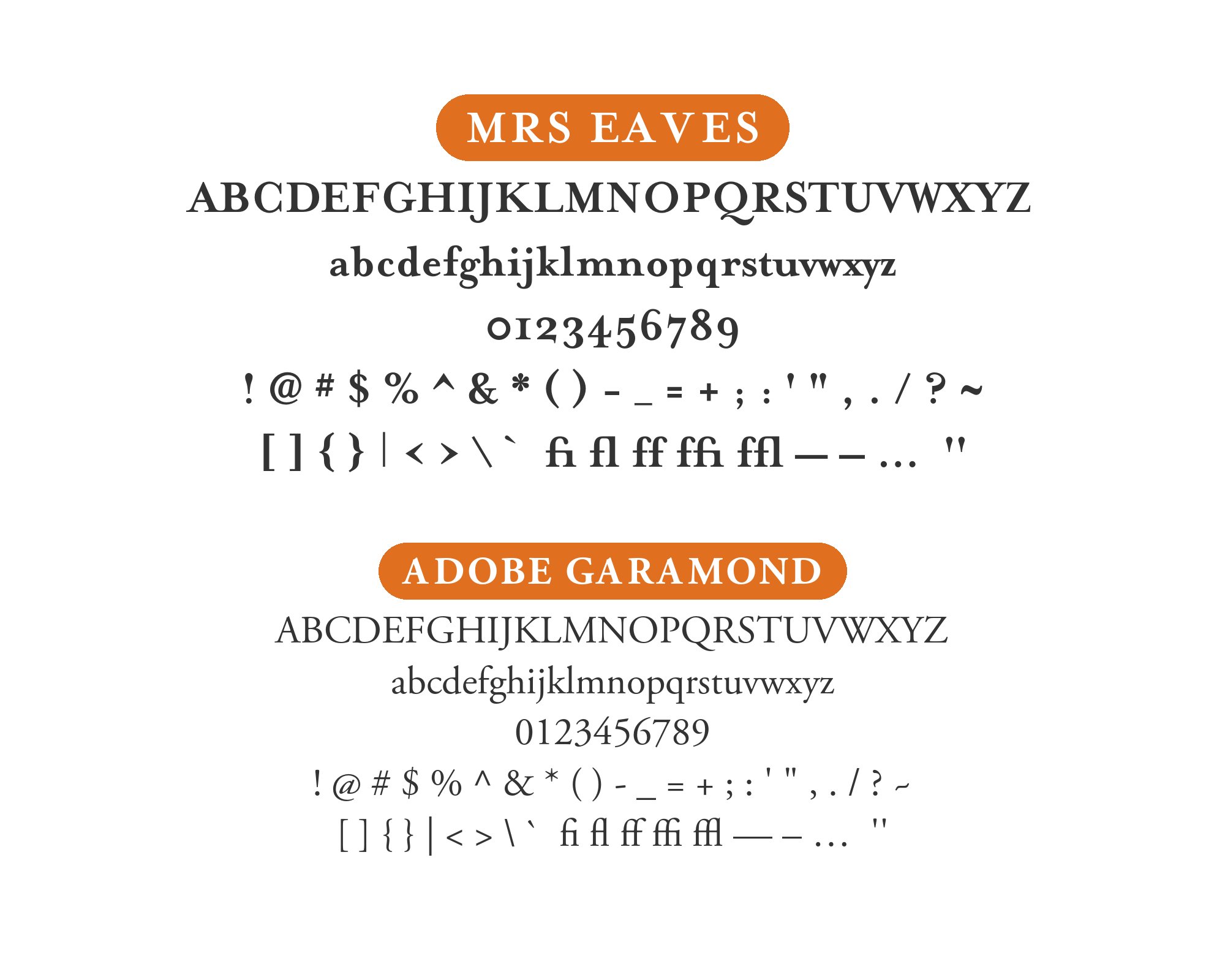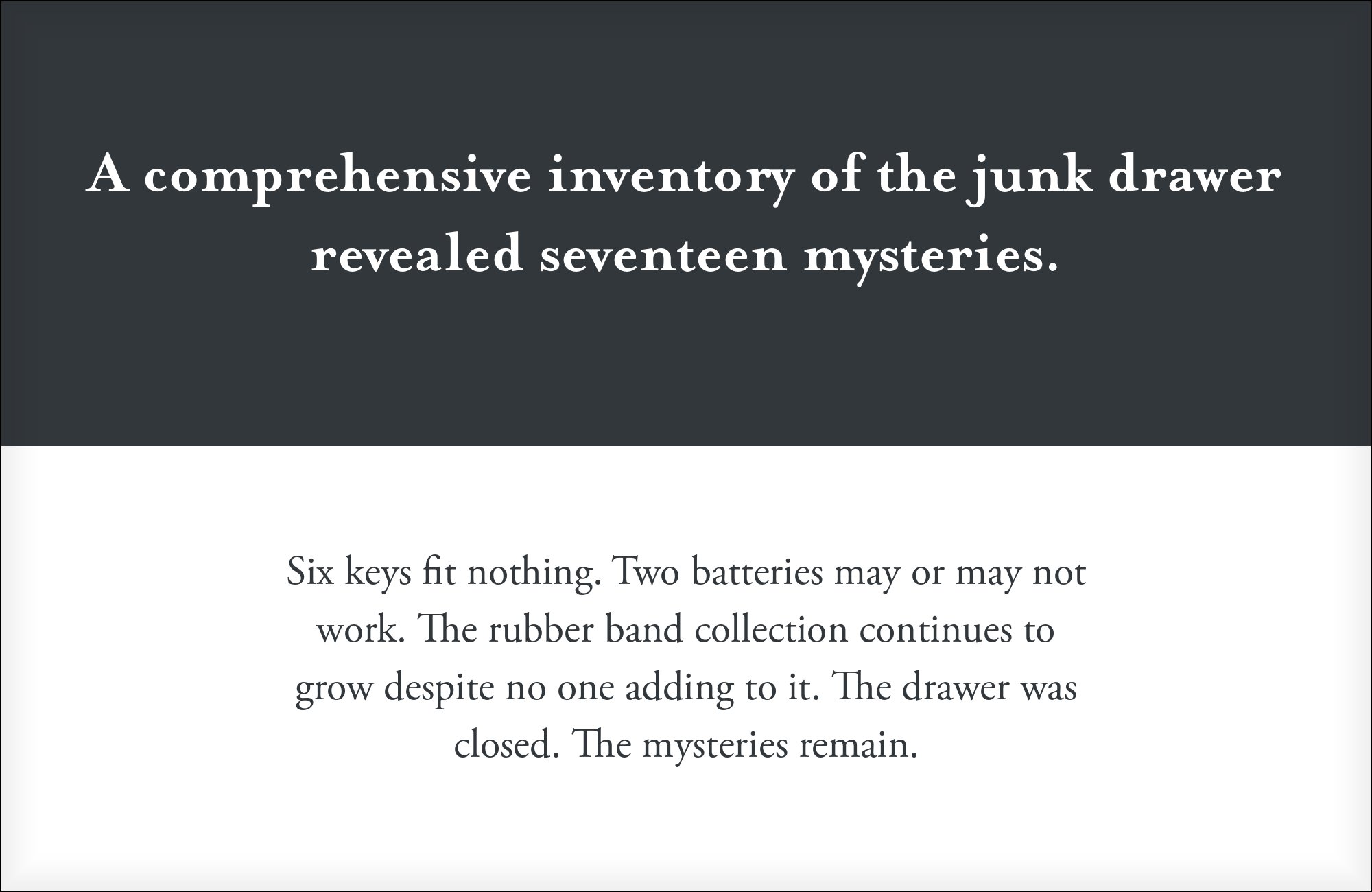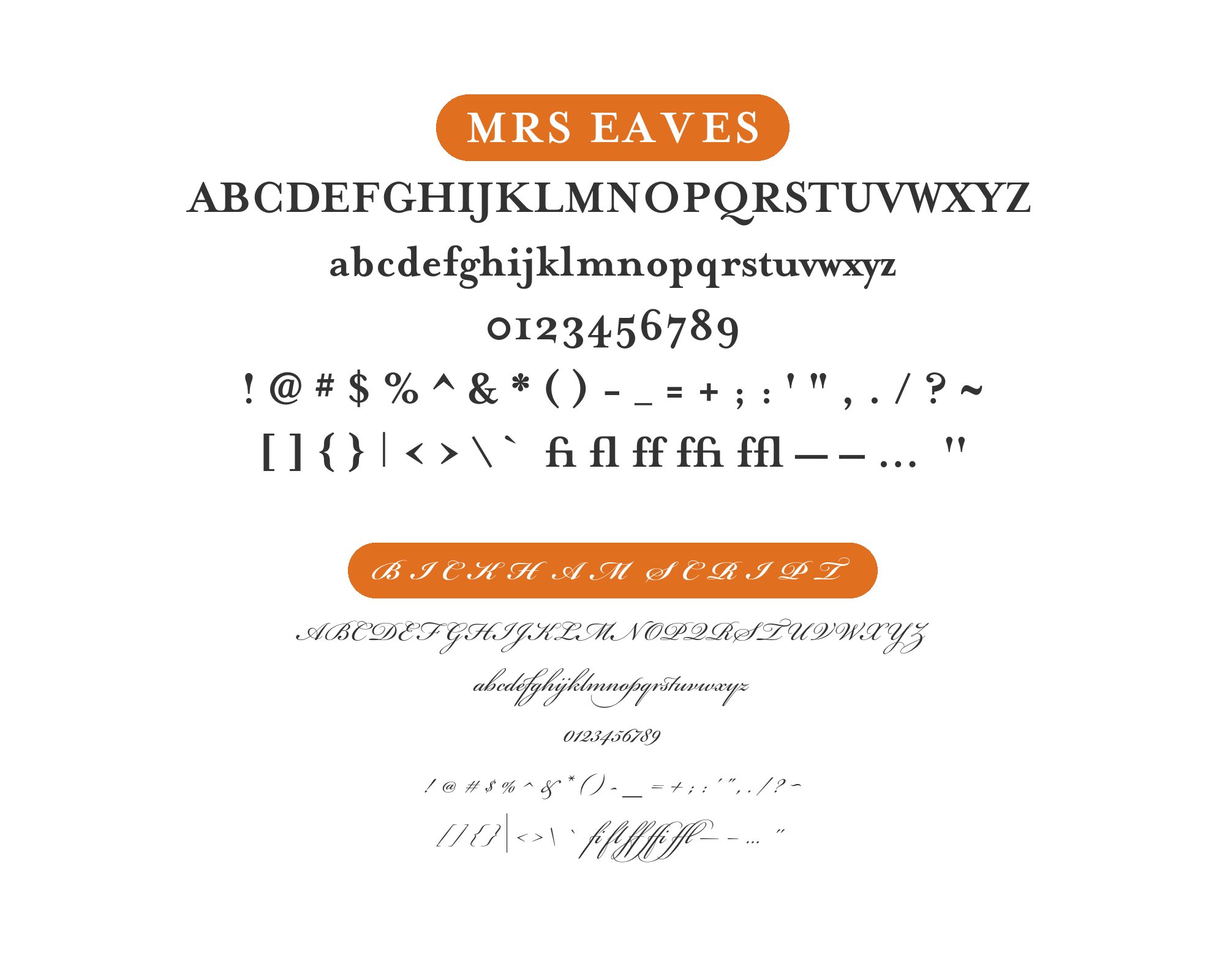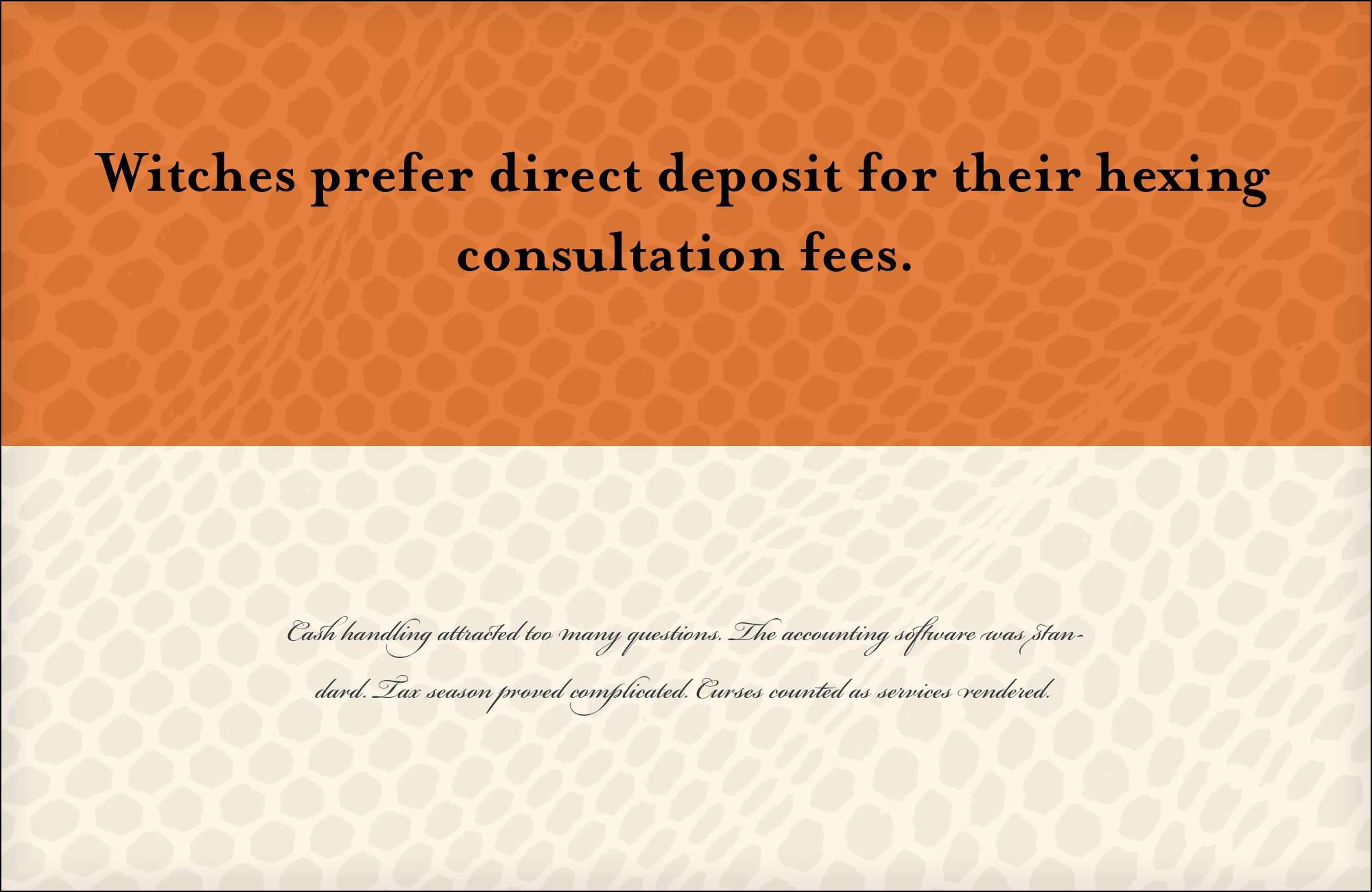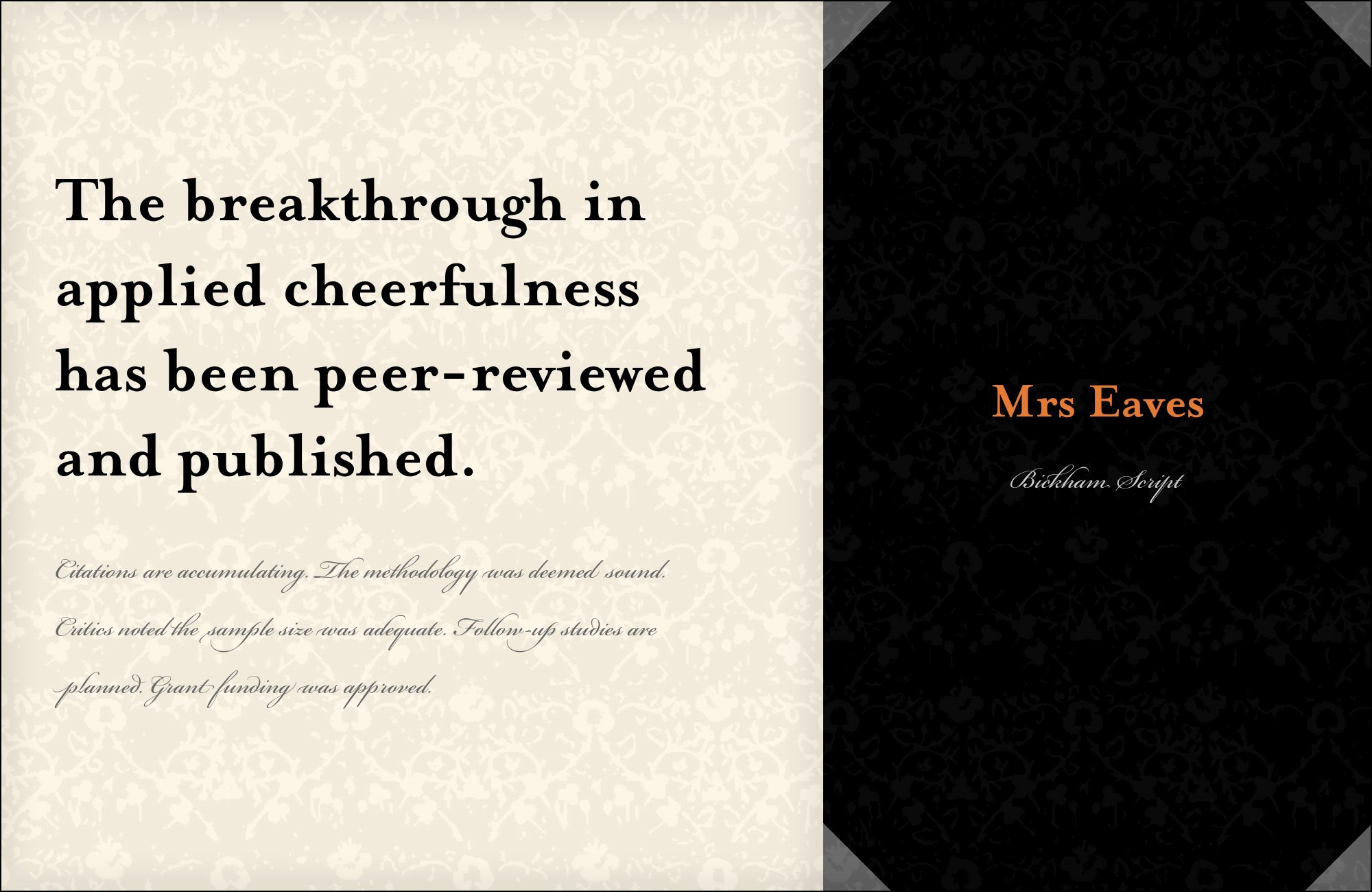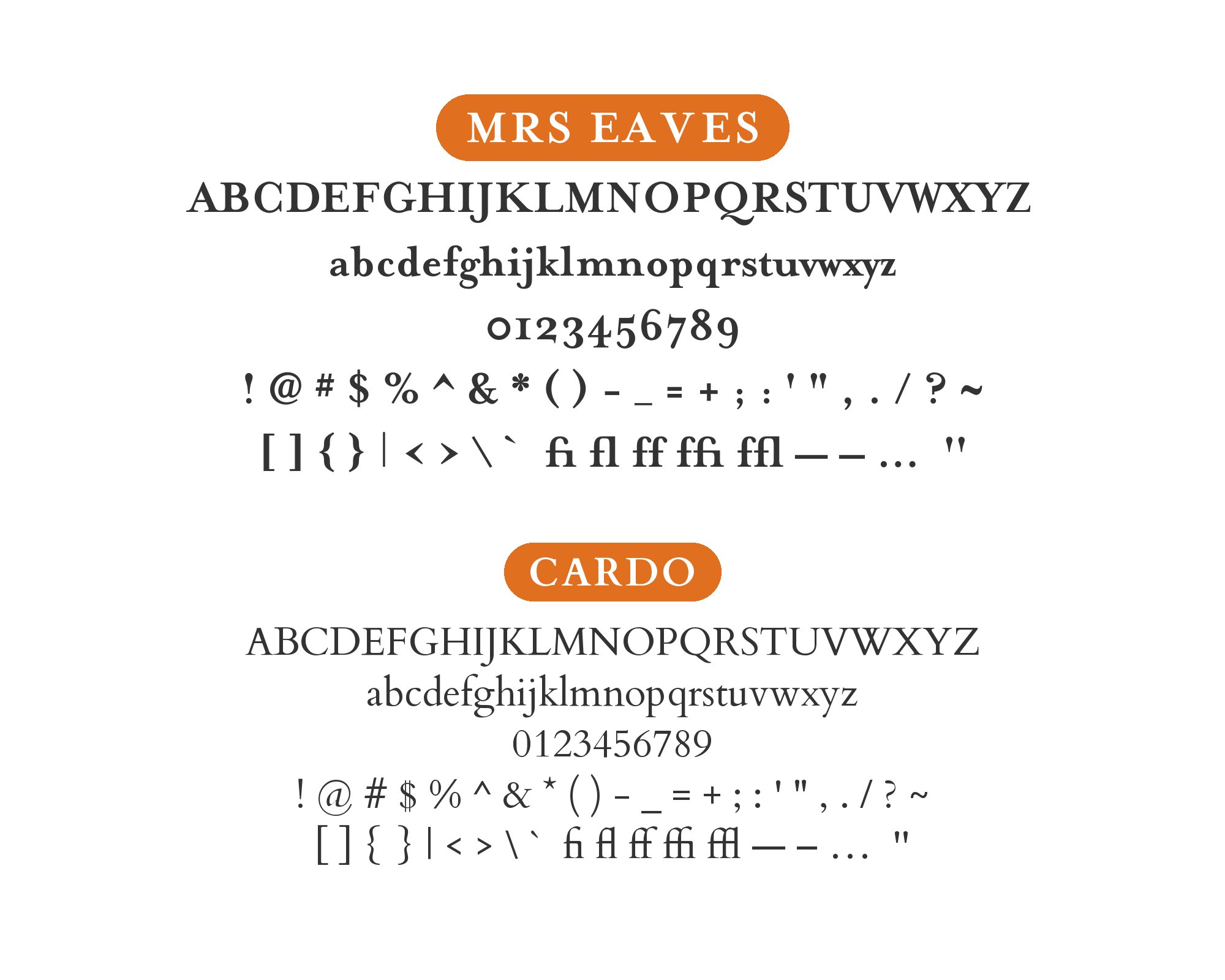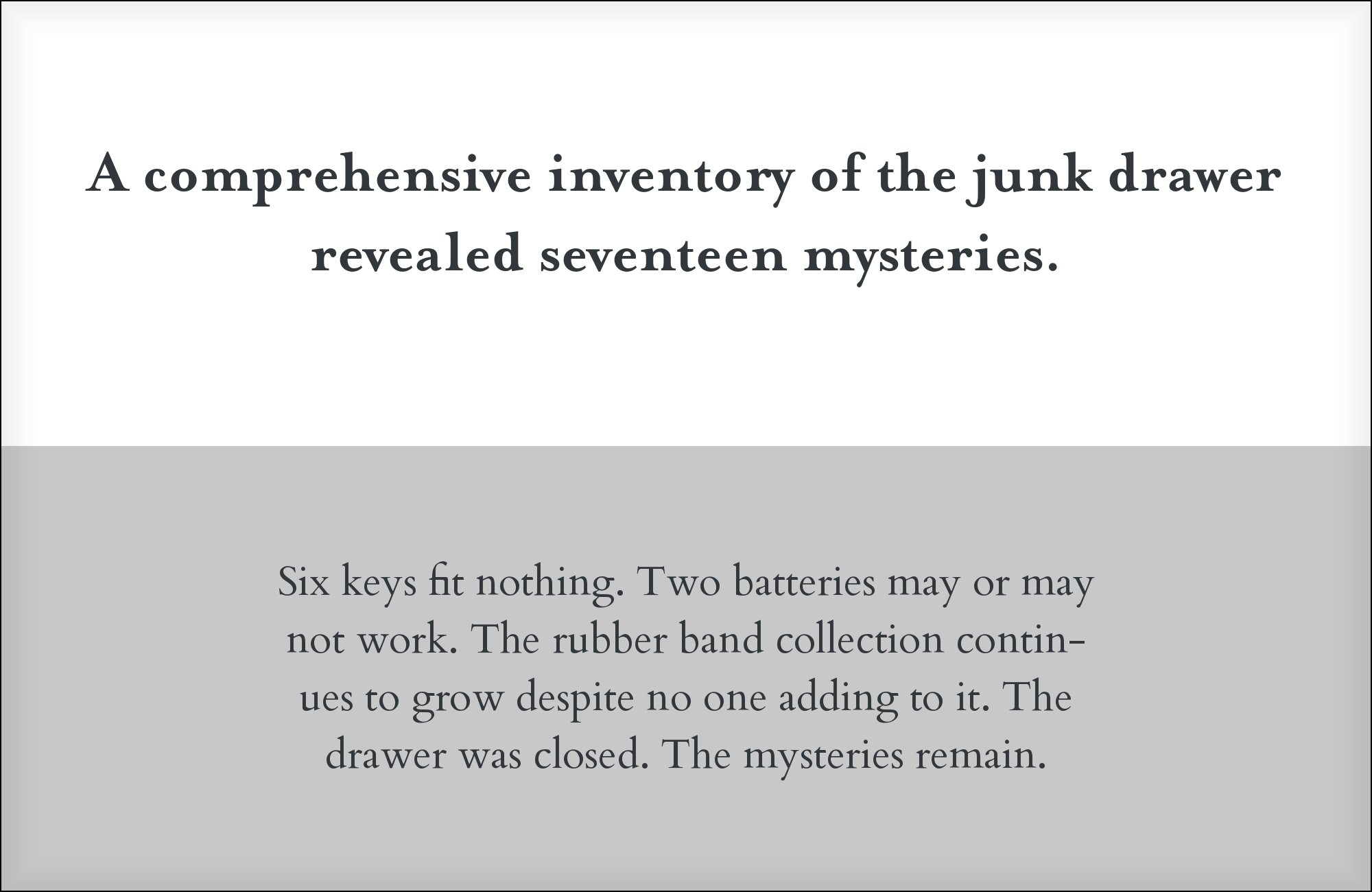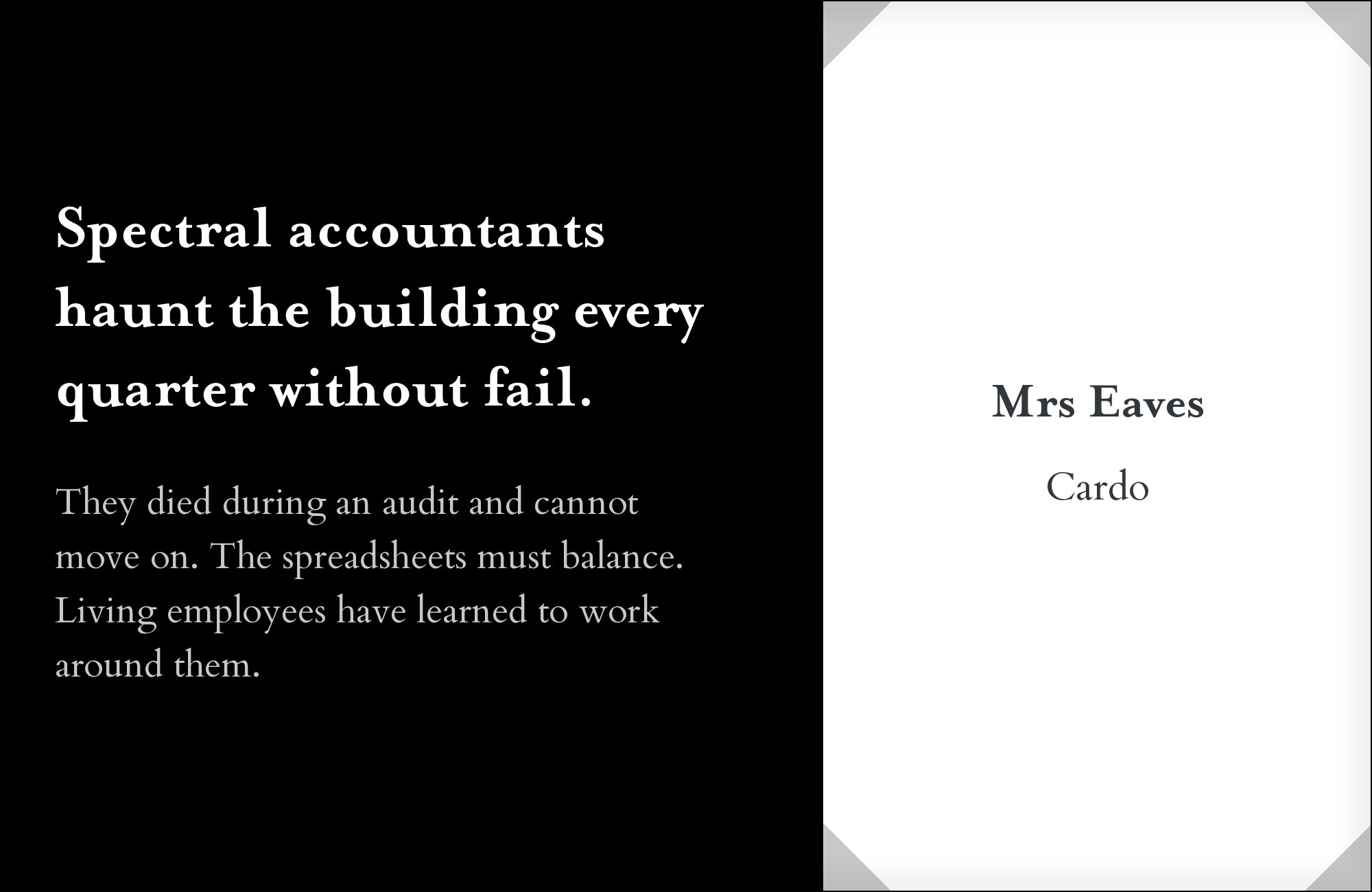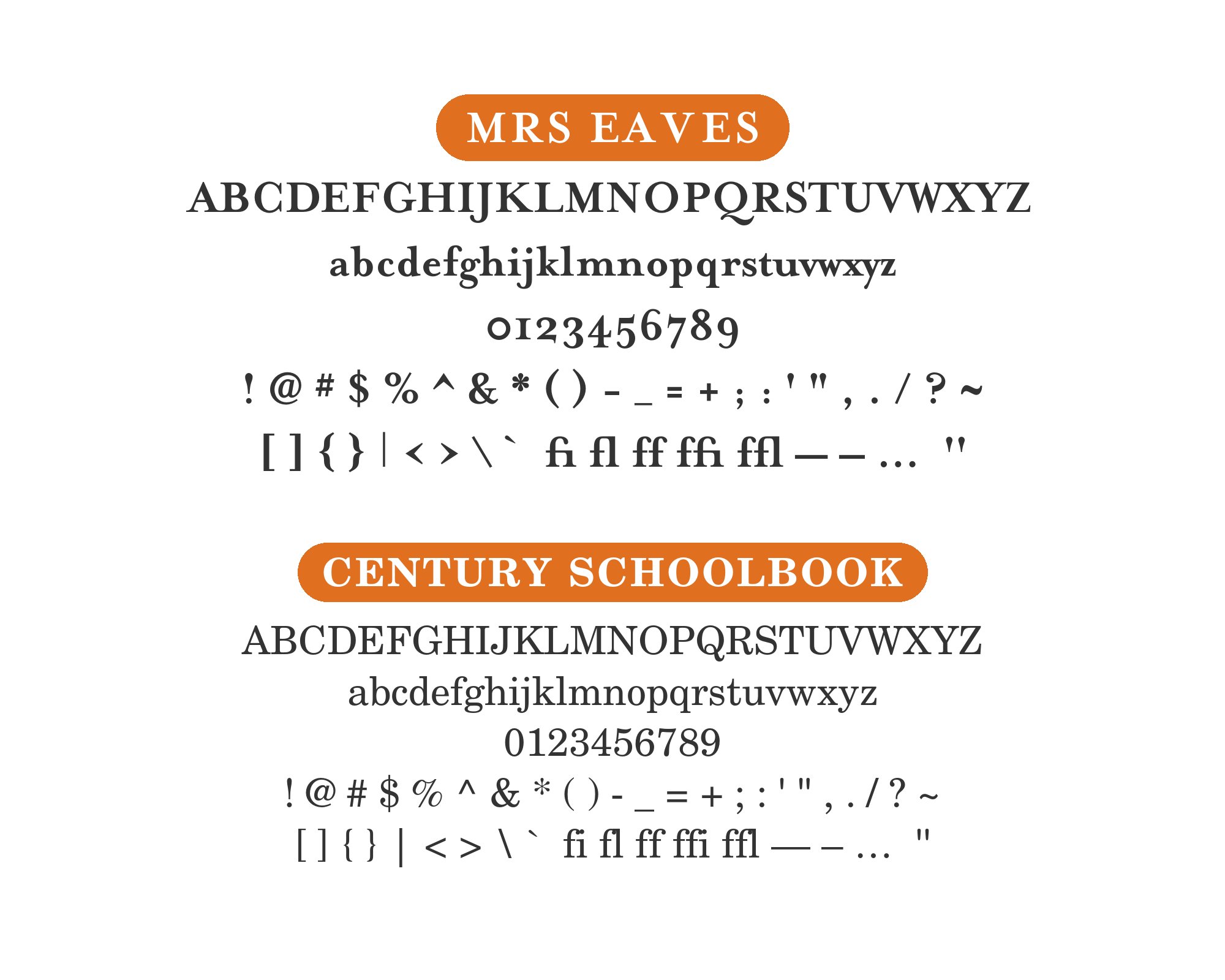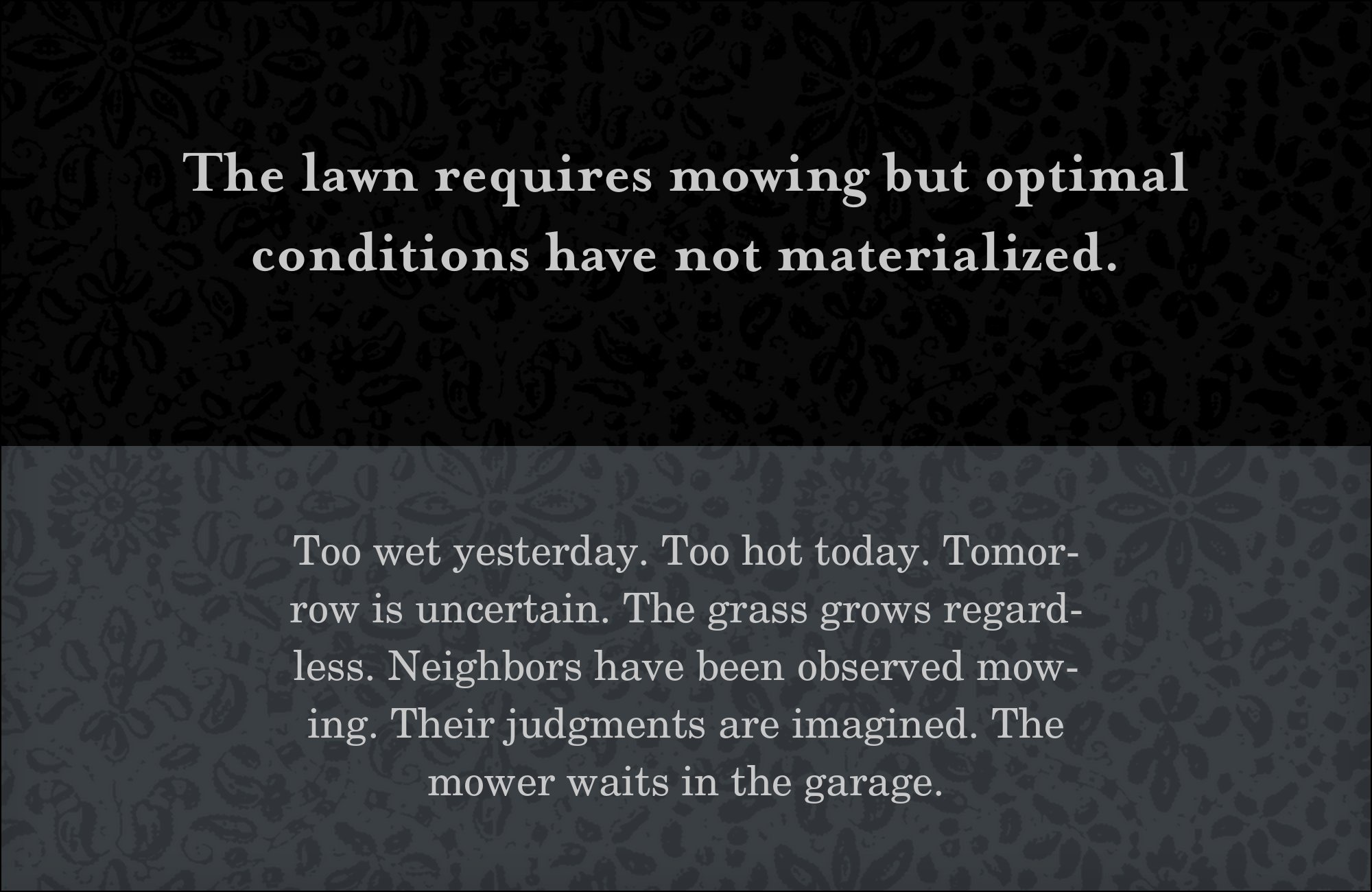
Mrs Eaves pairs great with Jost, Futura and Inter. All 9 pairings are shown below in real rendered specimens, with the reason each one works.
What fonts go with Mrs Eaves? The pairings below each have a reason they work.
Mrs Eaves is a working typeface, not a novelty. Several combinations draw from real projects; Jost and Inter are design suggestions to try. Here are fonts that pair well with Mrs Eaves.
1. Jost
Jost is a geometric sans inspired by 1920s German sans-serifs — circular bowls, a single-story a, monoline strokes — with no design relationship to Mrs Eaves. Used as a headline face, its crisp geometry offers a clean contemporary contrast to Mrs Eaves’ irregular, ligature-heavy serifs rather than a matched companion.
2. Futura
A plain geometric sans strips away every quirk of Mrs Eaves’ irregular, ligature-heavy serifs, so the display face gets to be the whole personality of the page — the most-repeated real pairing found in this research: a Typewolf case study (Little Black Classics) and 4 separate Fonts In Use projects (Pocket Penguins series, Penguin Little Black Classics series, The Stonewall Reader, Indique Virgin Hair Extensions).
3. Inter
Inter was drawn specifically for UI and small-size legibility — tight metrics, a tall x-height, a neutral screen-tuned skeleton. Handling UI chrome and small text while Mrs Eaves’ literary warmth stays reserved for headlines and pull quotes keeps a characterful serif legible on screen.
4. Cardo
Cardo is itself an old-style text serif built for long-form reading; pairing it with Mrs Eaves (seen on the “Moreish Skincare” site) lets Mrs Eaves handle branded display copy while Cardo quietly carries paragraph text at a size where Mrs Eaves’ idiosyncratic details would become distracting.
On the same “Moreish Skincare” site, a neutral grotesque grounds the page’s UI chrome and labels, giving Mrs Eaves room to be purely decorative/editorial without needing to also handle functional text.
6. Bickham Script
A flourished script for accents/callouts against Mrs Eaves’ body-and-display serif is a repeated real pattern in the Fonts In Use archive for this font — it turns up on a restaurant identity (Hawks Restaurant), a hair-extensions brand (Indique), and a book jacket (Mrs. Nixon by Ann Beattie), all using the same “elegant script accent + literary serif” formula.
7. Century Schoolbook
On the Rodda’s dairy-brand identity, a plain, high-legibility schoolbook serif for small print sits beneath Mrs Eaves’ more characterful branding type — a practical “legibility workhorse under a display serif” split.
8. Adobe Garamond
On Heart Talk by Cleo Wade, Mrs Eaves appears on the covers and Adobe Garamond sets the interior. Their different rhythms suggest a useful split for book design: give Mrs Eaves the expressive display role and let the quieter serif carry longer passages.
9. Rockwell
On the Noble Syrup label (alongside a script accent), a geometric slab serif for structural/label text grounds Mrs Eaves’ more delicate display forms — an unusual but real combination showing Mrs Eaves can anchor packaging typography rather than only literary design.
There are no absolute rules for font pairing, just principles to guide you. The key is contrast—in weight, in style (serif vs. sans-serif), or in personality. Mrs Eaves is versatile enough to play well with many different typefaces.
Trust your eye, experiment freely, and remember that the best pairing is the one that serves your content and audience. Typography should enhance communication, not complicate it.